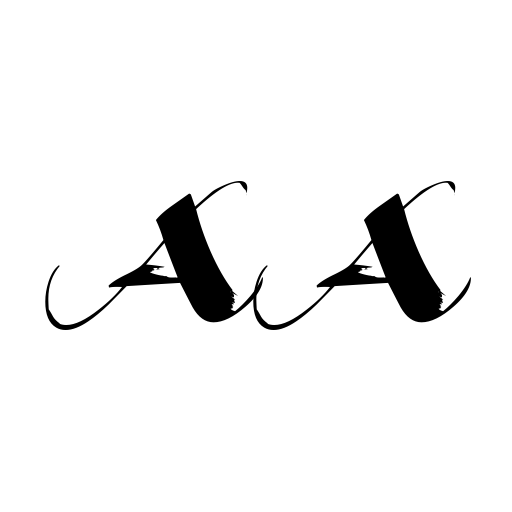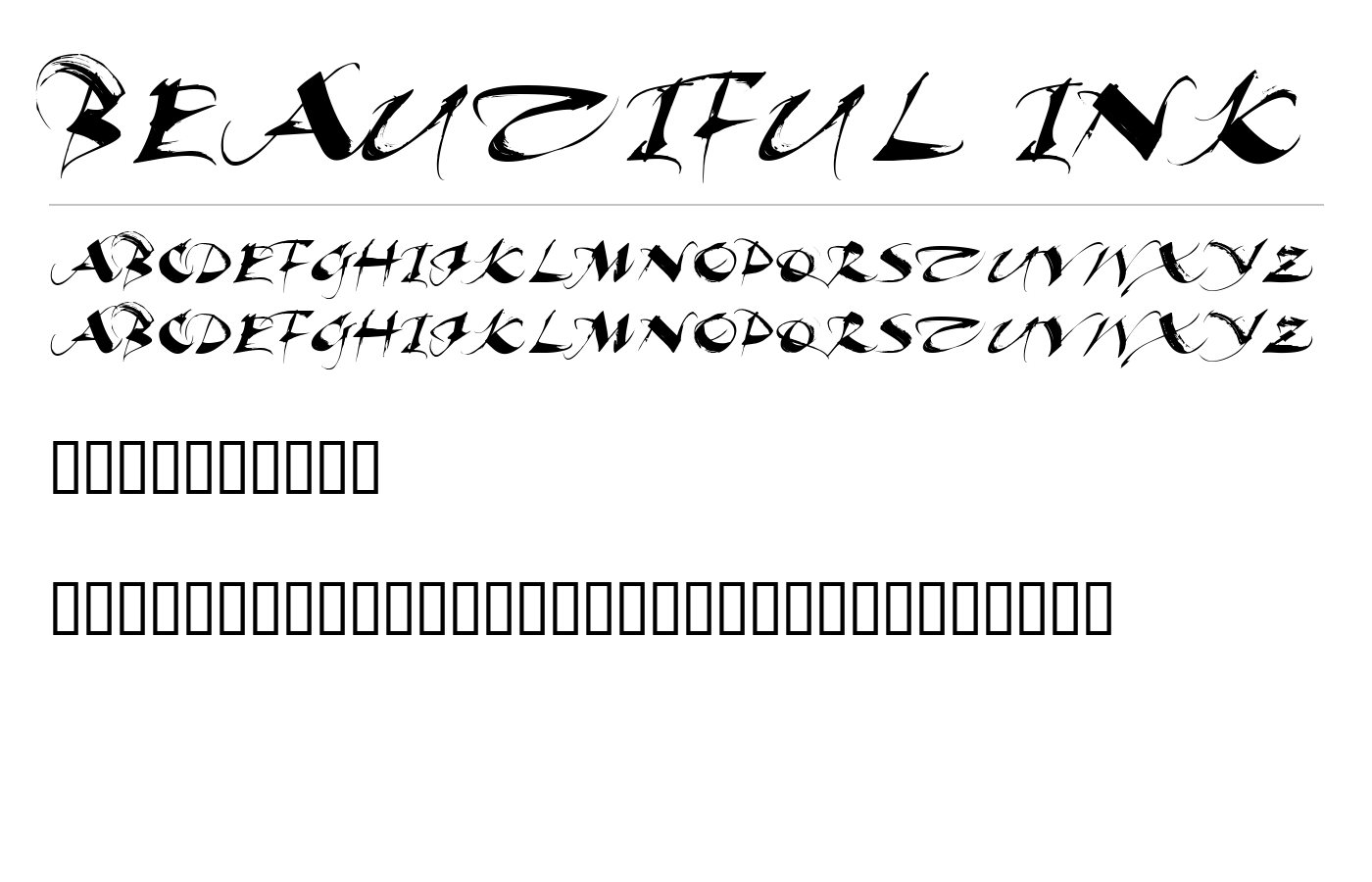
Beautiful Ink Font is an expressive, calligraphic script typeface with dynamic, brushstroke-inspired letterforms that combine sharp and flowing strokes for an artistic, handcrafted feel. Its bold weight and high-contrast ink textures make it perfect for creative, eye-catching headlines, logos, and branding where a dramatic, elegant, and slightly edgy style is desired. This font works especially well in fashion, art, or luxury contexts that want to communicate originality and refined creativity.
Beautiful Ink Font
About Beautiful Ink Font